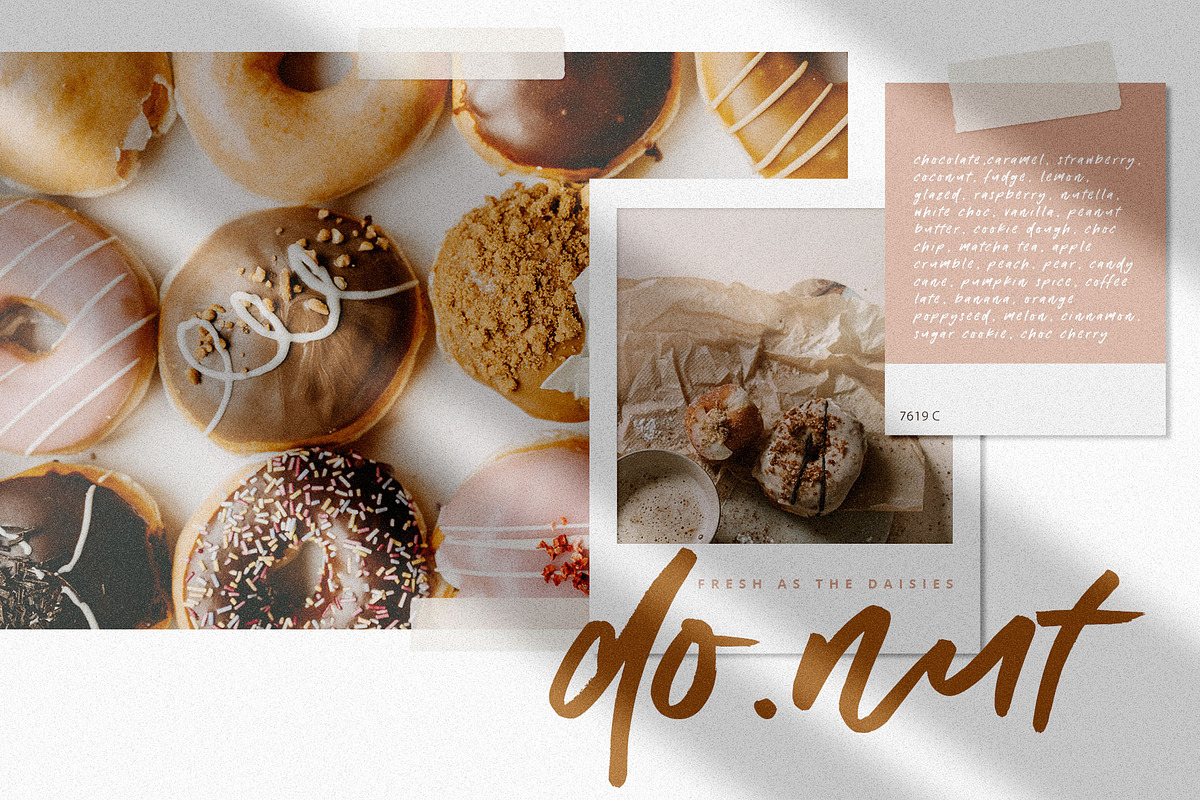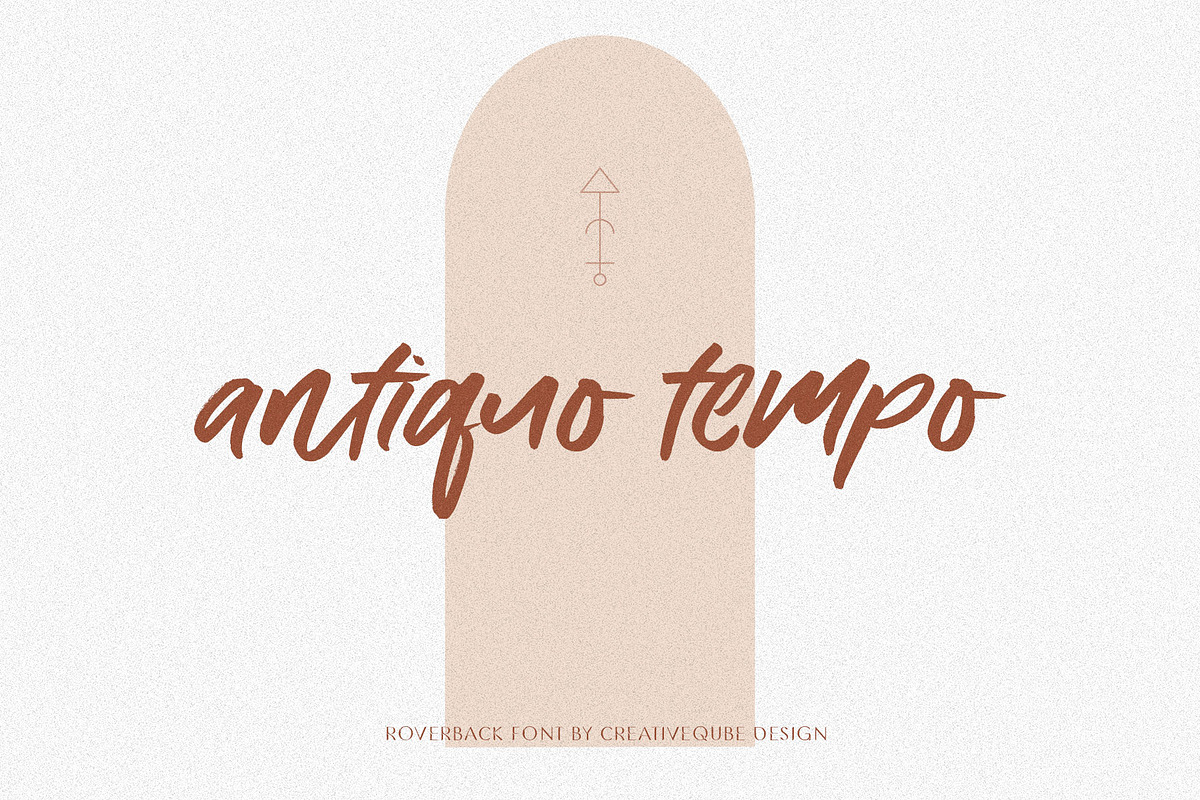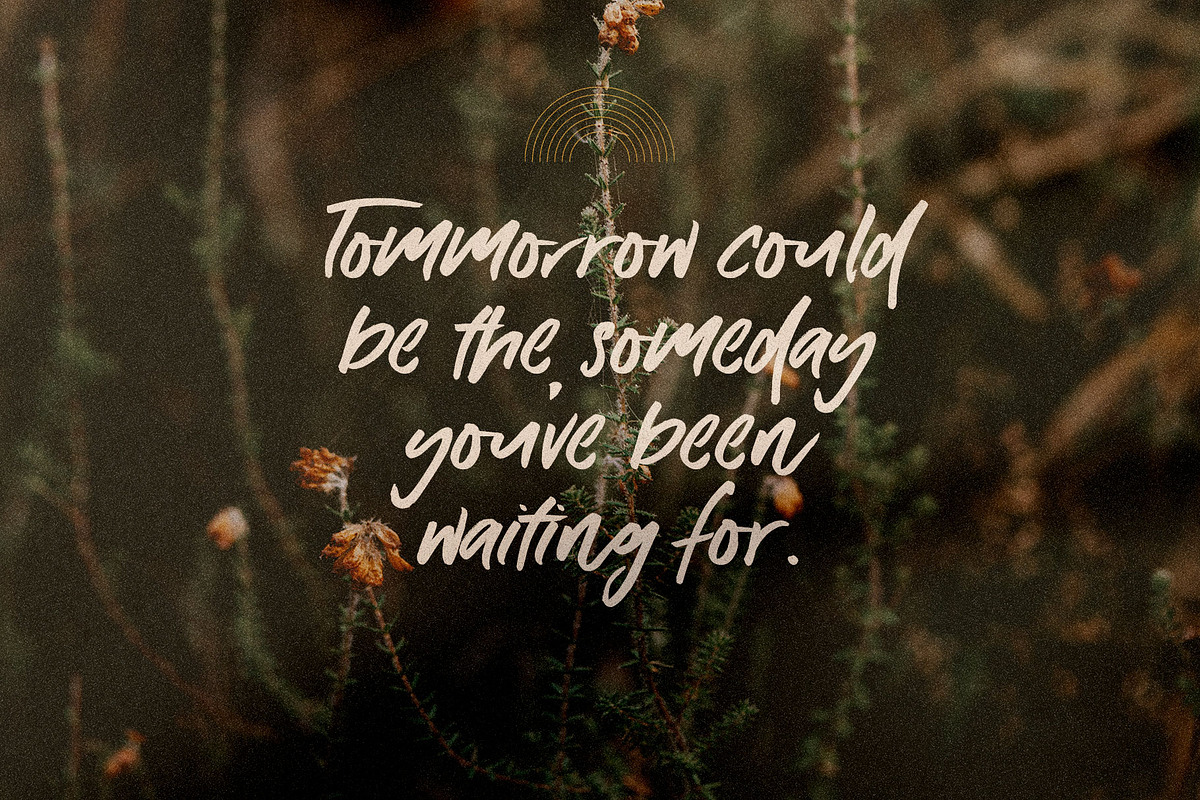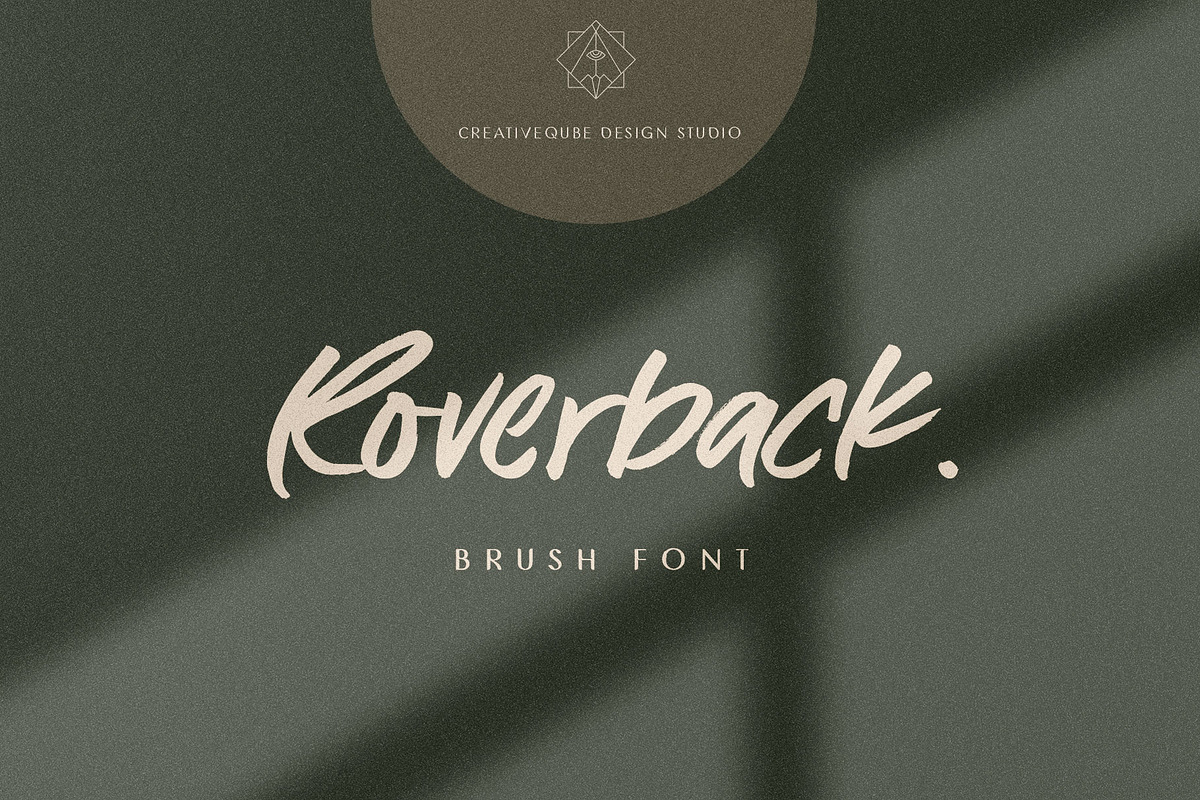
Roverback Font
Introducing Roverback. A hand brushed semi-script display font.
- International characters included.
Roverback Font by Creativeqube Design fits naturally into Branding, posters, packaging, typography.